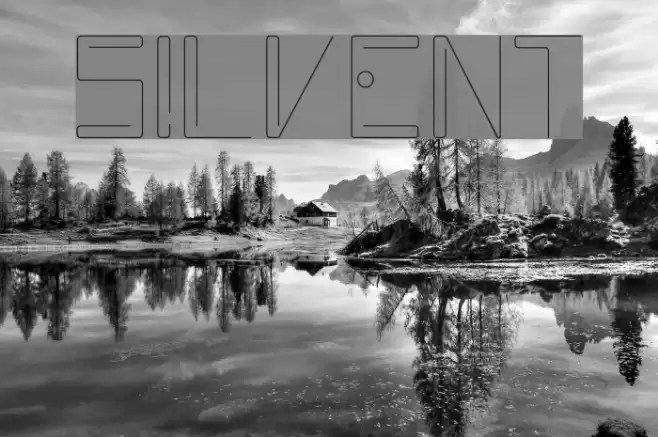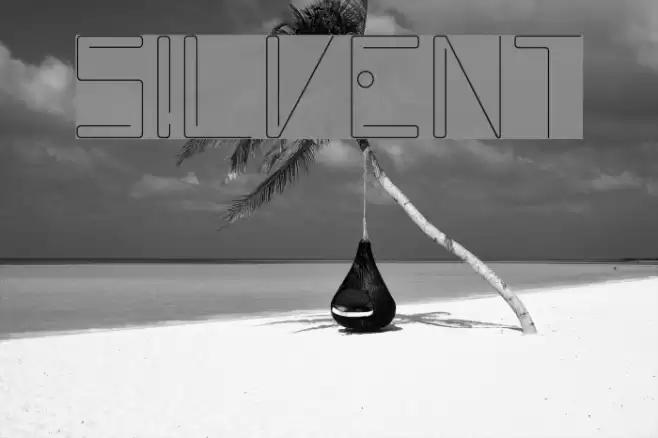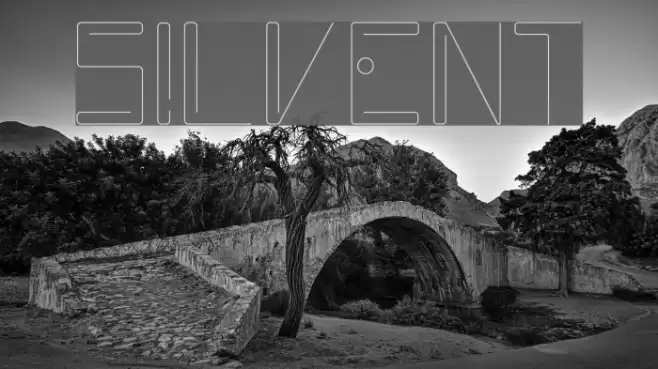
Silvent Font
Silvent Description
This font features a unique, geometric design with a futuristic aesthetic. Each character is constructed with clean, straight lines and sharp angles, giving it a mechanical and digital feel. The letters are outlined, with a consistent stroke width that maintains uniformity across the entire set. The font's distinct style is further emphasized by the inclusion of circular cutouts within each character, adding an element of intrigue and modernity. This design choice enhances the font's readability while maintaining its avant-garde appearance. The overall look is sleek and minimalistic, making it suitable for contemporary design projects.
A futuristic, geometric font with outlined characters and circular cutouts from Fancy fonts.